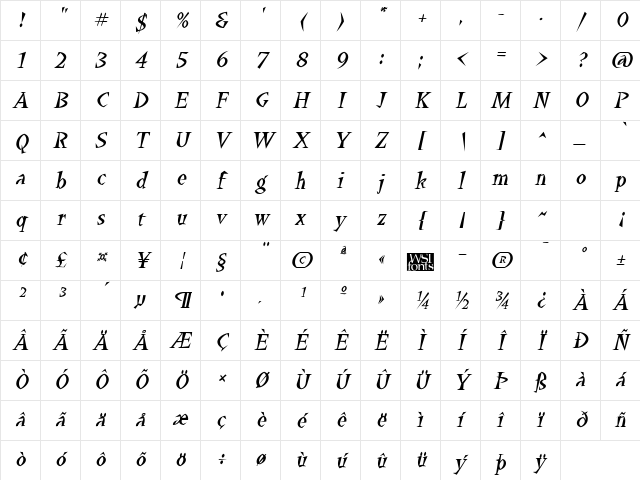
Yucatan is a composed and adaptable typeface that performs quietly and consistently across a wide range of design contexts. The slanted form adds forward momentum and visual energy.
Pro Tip: Use Yucatan for emphasis, pull quotes, and subheadings where its slanted energy can add rhythm to the layout.